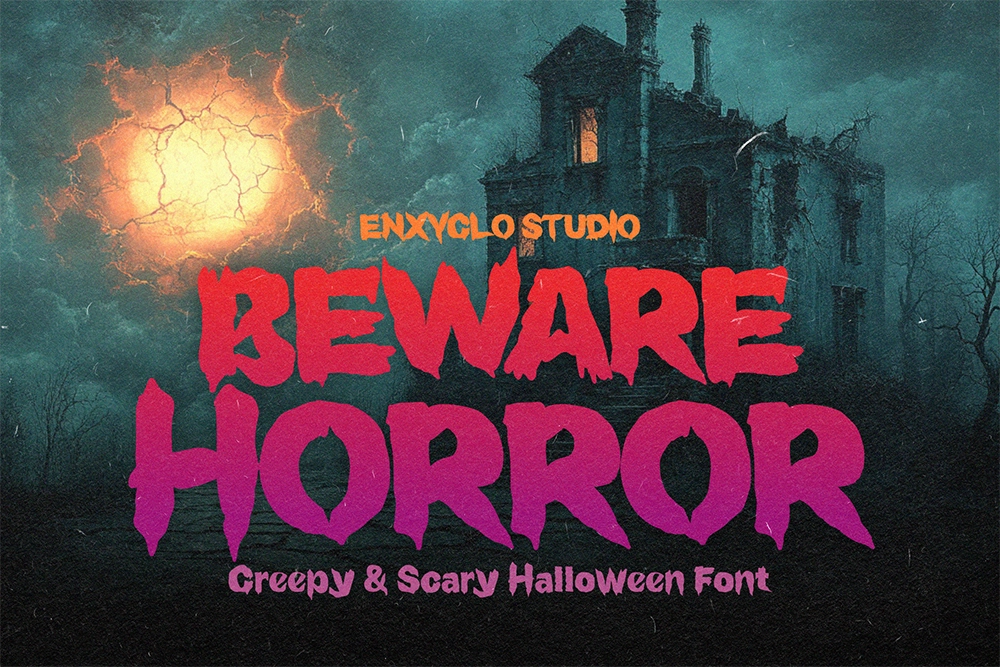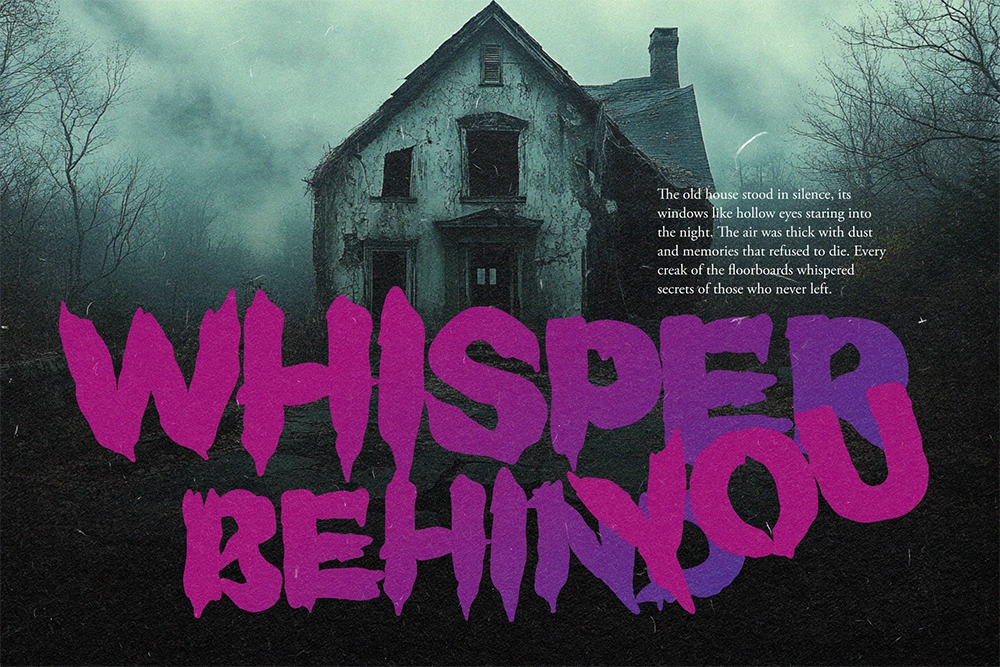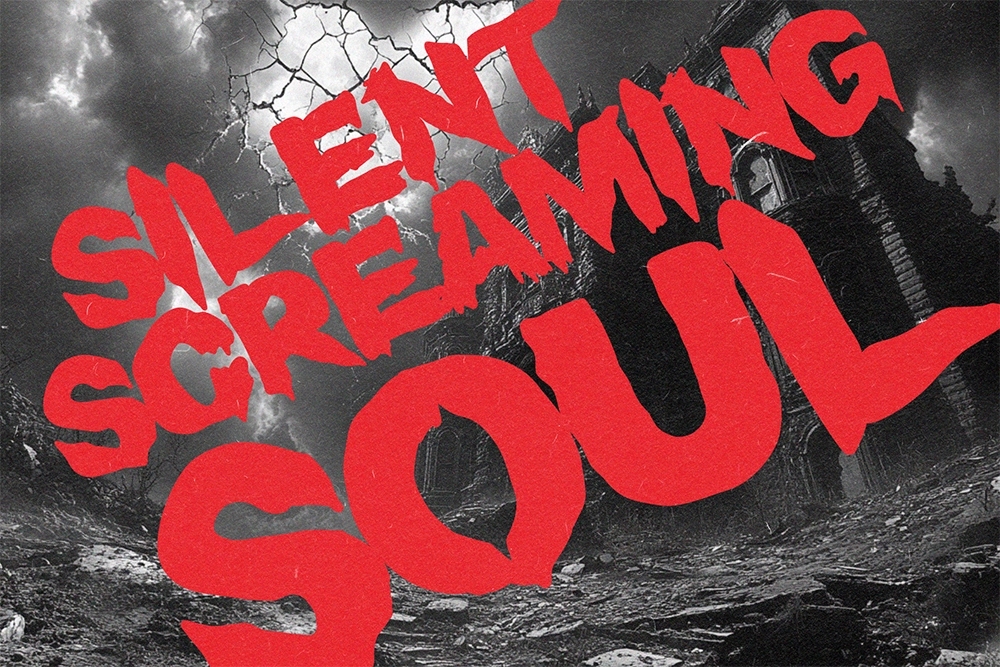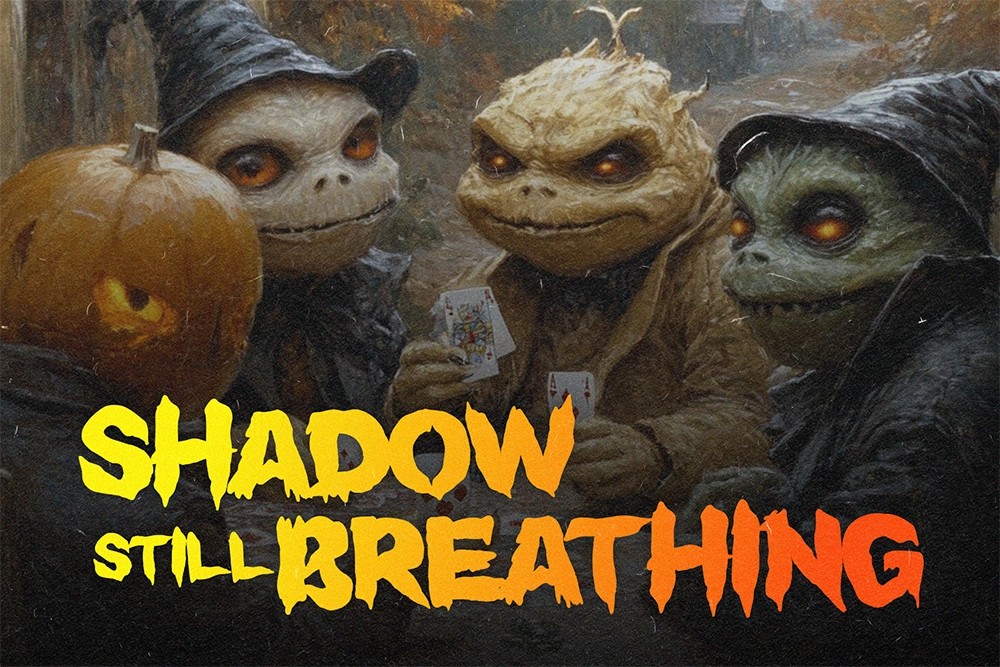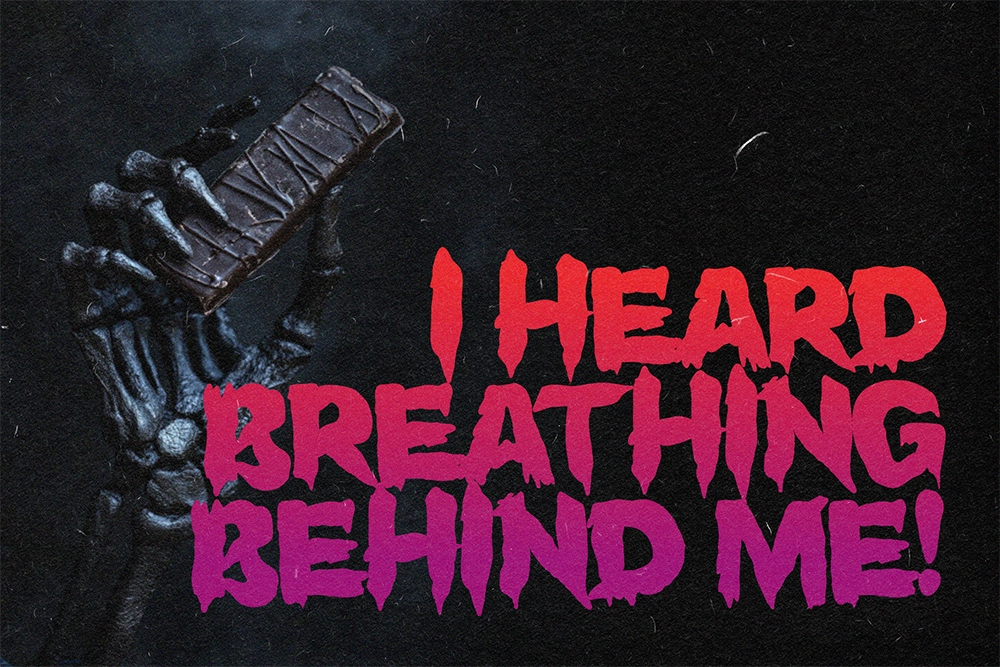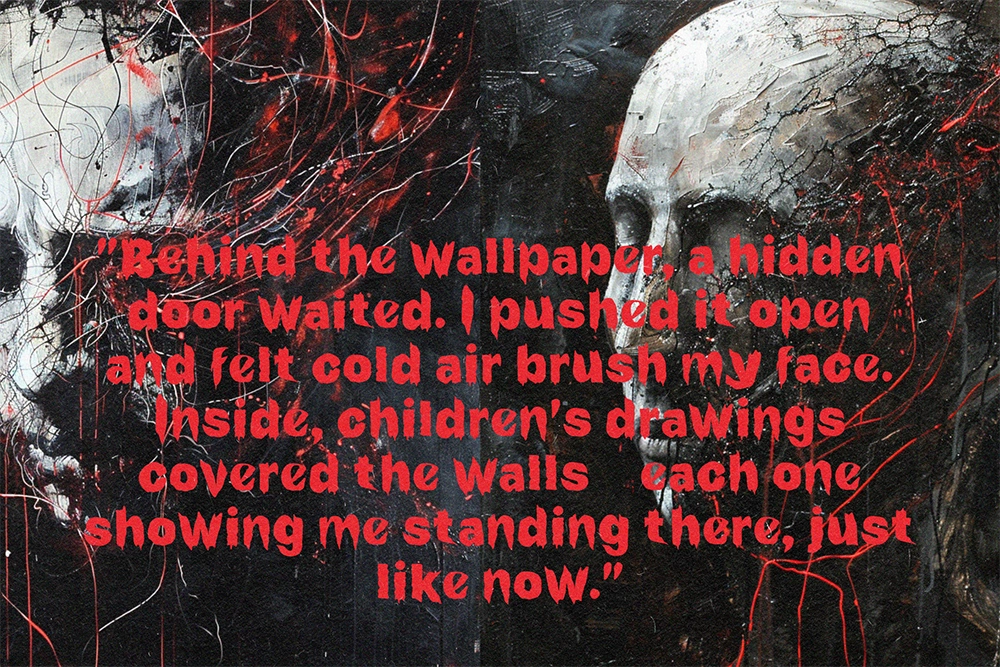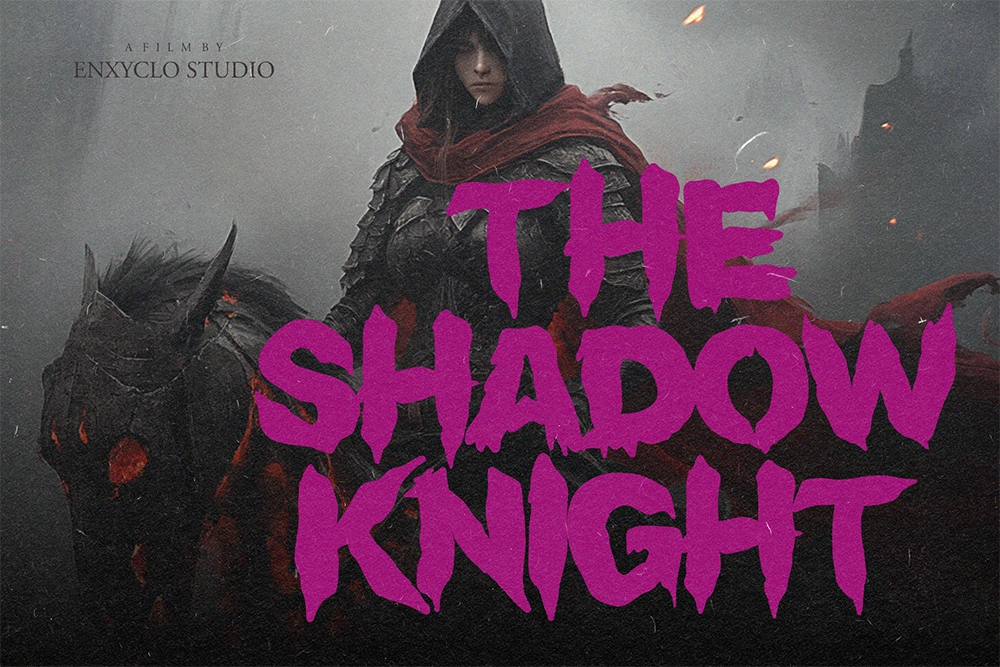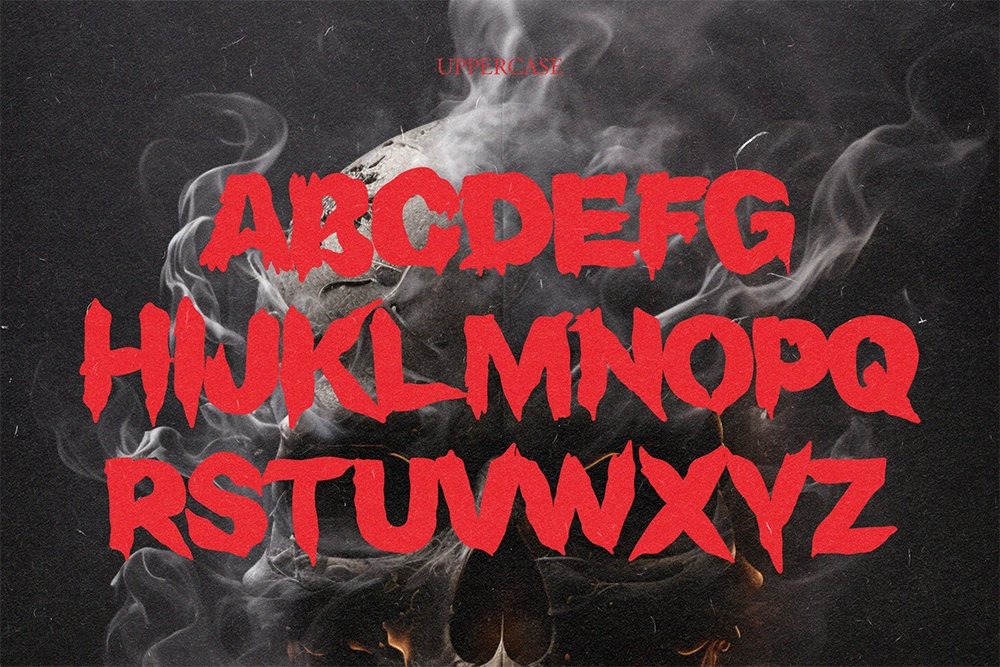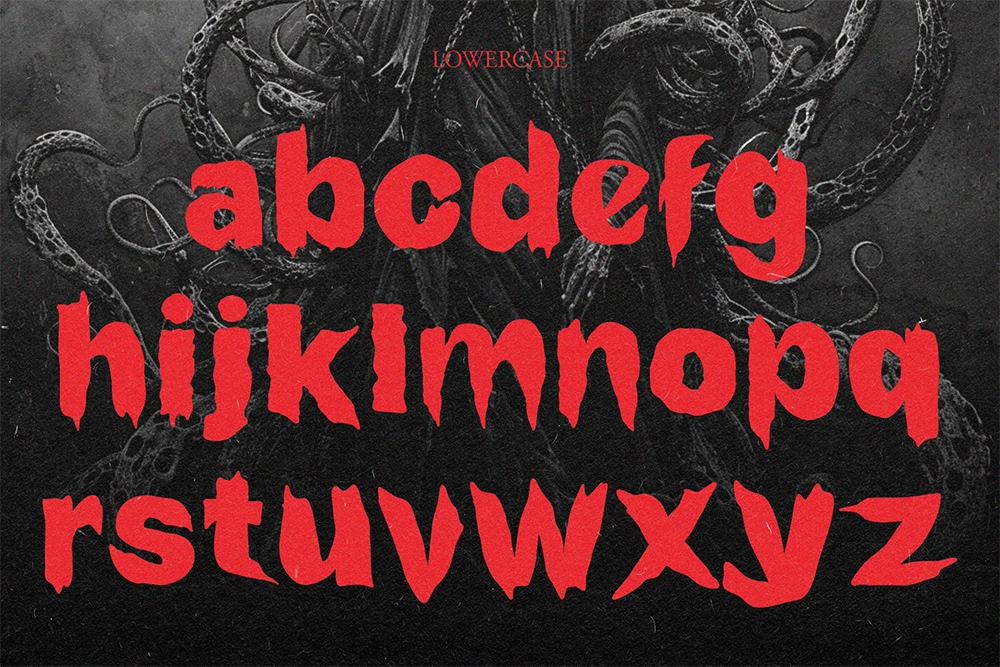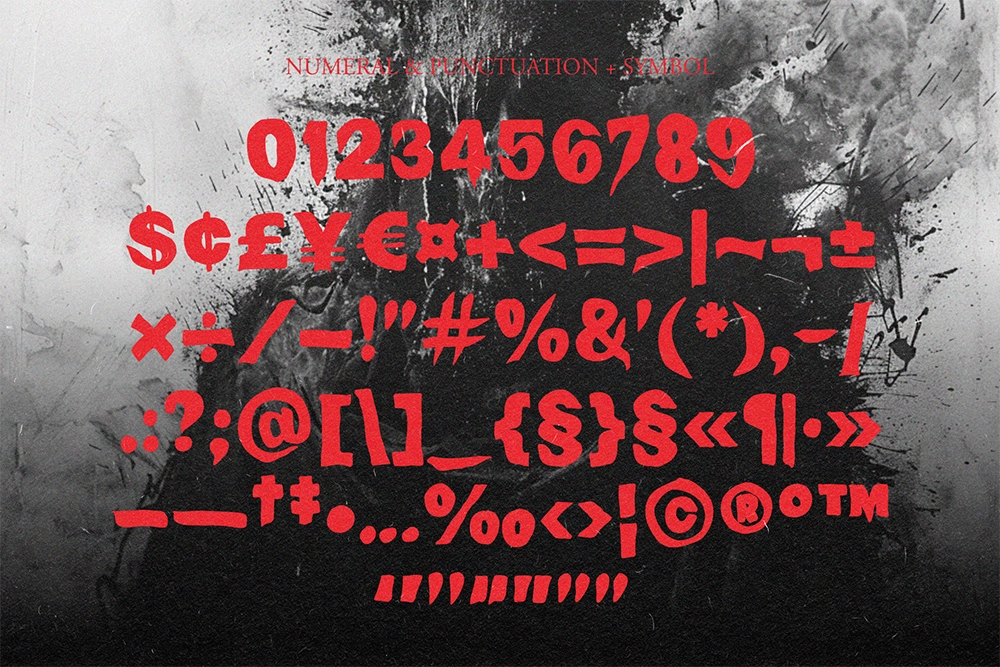
Beware Horror - Scary Horror Font
Beware Horror – Scary Horror Font is a bold display typeface designed to capture the chilling atmosphere of classic horror aesthetics. Featuring eerie letterforms with jagged edges and unsettling shapes, this font delivers a dark and dramatic visual presence that instantly evokes suspense and fear. Its strong structure keeps headlines clear and readable while maintaining the creepy personality that horror-themed designs demand.
Perfect for Halloween graphics, horror movie posters, spooky event branding, and dark-themed merchandise, Beware Horror brings a sinister tone to every composition. The expressive characters help create intense, attention-grabbing typography that amplifies the mood of frightening and mysterious visual concepts.
- Uppercase & Lowercase Characters
- Punctuation & Symbols
- Horror Display Style